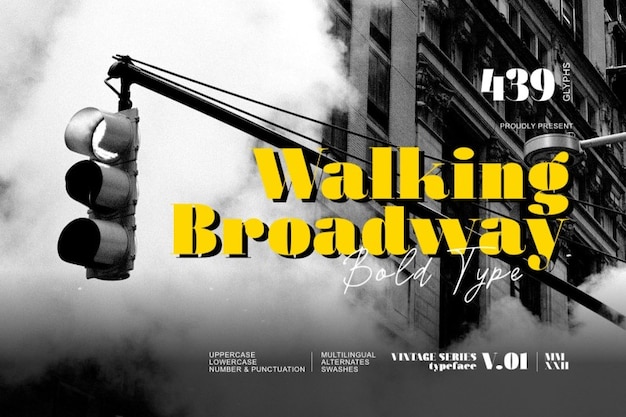
Walking Broadway
Walking Broadway Font
Walking Broadway font is a bold and timeless typeface that captures the essence of vintage elegance. With a classic flair reminiscent of Broadway's iconic marquees, this font adds a touch of old-world charm to your designs. Its strong presence and distinct letterforms make it a perfect choice for projects seeking a classic and dramatic aesthetic.